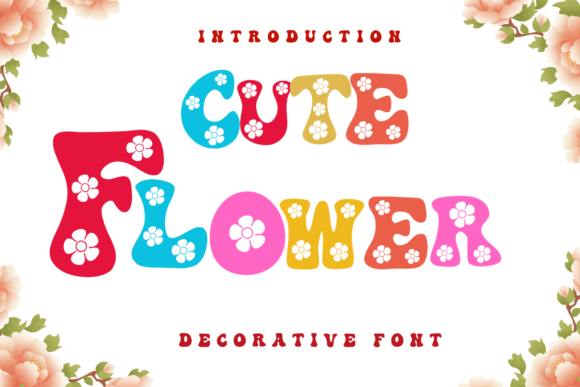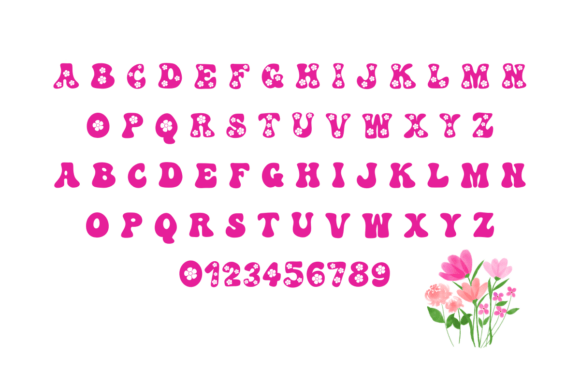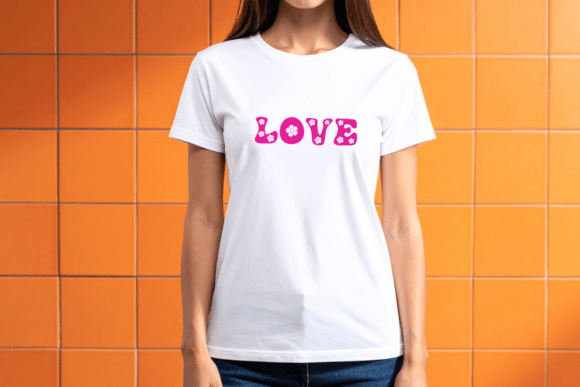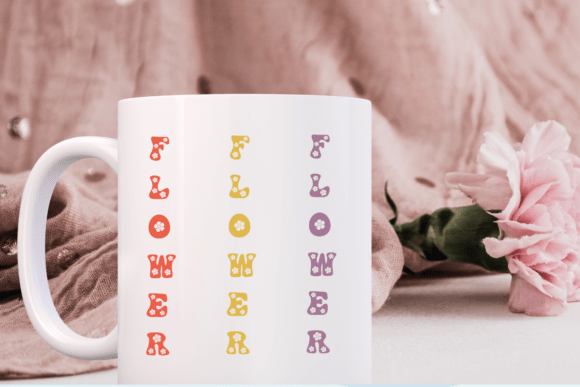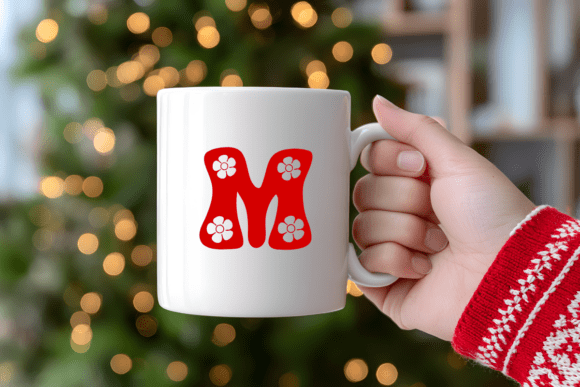
Cute Flower Font: Adding Joy to Your Designs
Who hasn’t felt the excitement of sitting down with a blank sheet of paper and a handful of colorful markers, waiting for creativity to strike? The thrill of bringing a new idea to life is one of the most rewarding experiences for designers. But sometimes, all it takes is the right tool to spark that creative spark. Enter the Cute Flower Font, a charming decorative font that’s bursting with color and personality.
Perfect for adding a playful touch to children’s projects, greeting cards, or spring-themed branding, the Cute Flower Font is a valuable addition to any designer’s toolkit. Its whimsical floral details bring a joyful retro spirit that’s both modern and fresh, making it an ideal choice for designers looking to add a touch of happiness and creativity to their work.
Whether you’re working on nursery art, fun packaging, or party invitations, the Cute Flower Font is sure to bring a smile to your face and a spring to your step. So why not give it a try and let your words blossom with imagination and positivity?
Cute Flower Font Key Features
- Font Family: The Cute Flower Font comes in a single font family with multiple styles and weights, including regular, bold, italic, and bold italic.
- Unique Characteristics: Features a unique, hand-drawn design with floral elements and cute illustrations, adding a touch of whimsy and playfulness to any text.
Cute Flower Font Review
I’ve had the chance to work with the “Cute Flower Font” and overall, it’s a sweet addition to any design project. ✨
- It’s perfect for creating a whimsical and playful atmosphere, making it great for children’s books, nursery decor, or any project that needs a touch of cuteness.
- ⚠️ The font may not be suitable for formal or professional projects, as it can come across as too childish or playful.
- ⚠️ Some users may find the font difficult to read at smaller sizes, so be sure to test it at various scales before finalizing your design.
Overall, the “Cute Flower Font” is a fun and versatile font that can add a touch of personality to your designs. While it may not be suitable for every project, it’s definitely worth considering for projects that require a playful and whimsical feel.
The Cute Flower Font is perfect for adding a touch of whimsy and playfulness to your designs.
1. Children’s party invitations and decorations.
2. Floral-themed designs and arrangements.
3. Vintage-inspired designs and graphics.